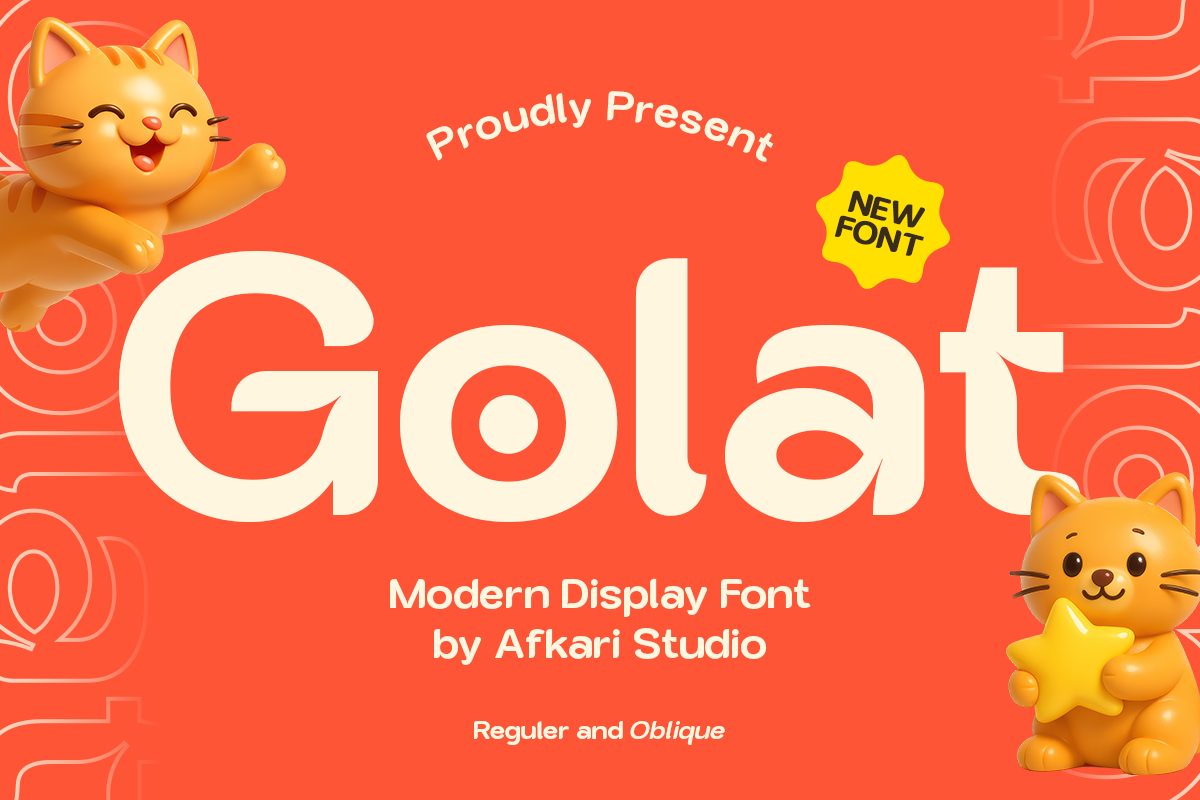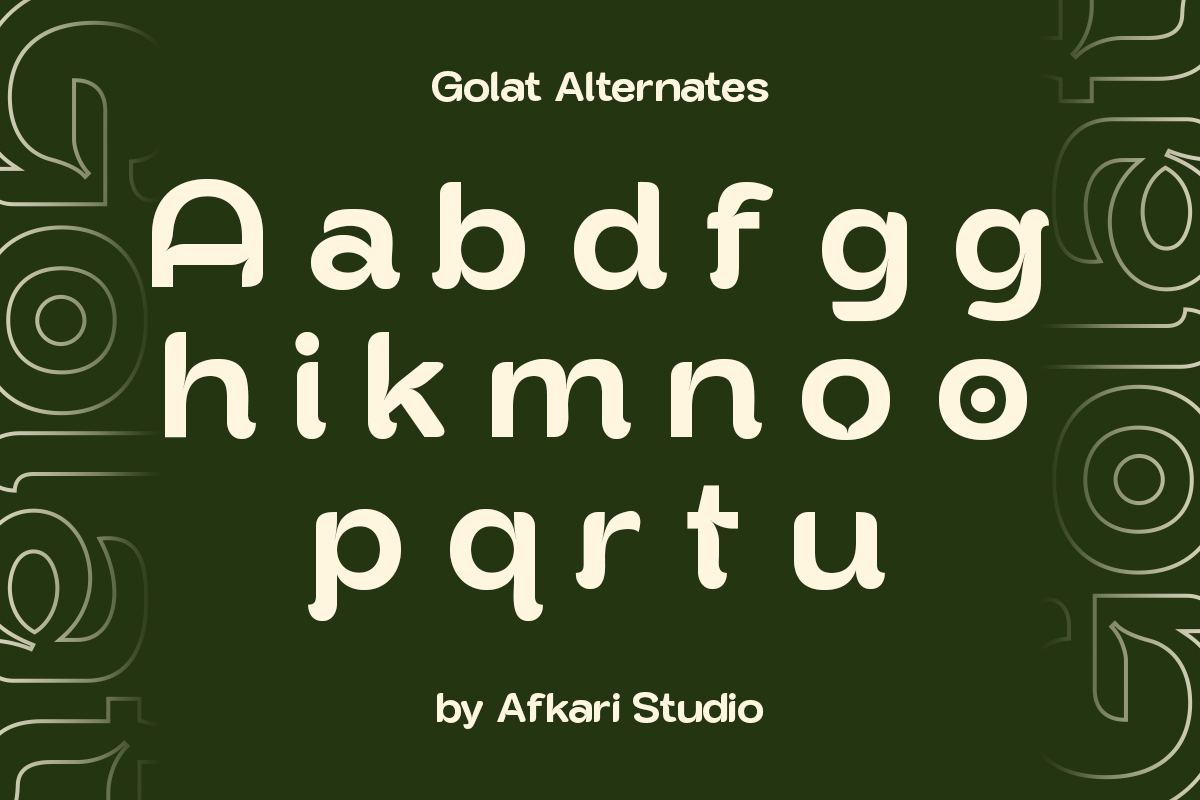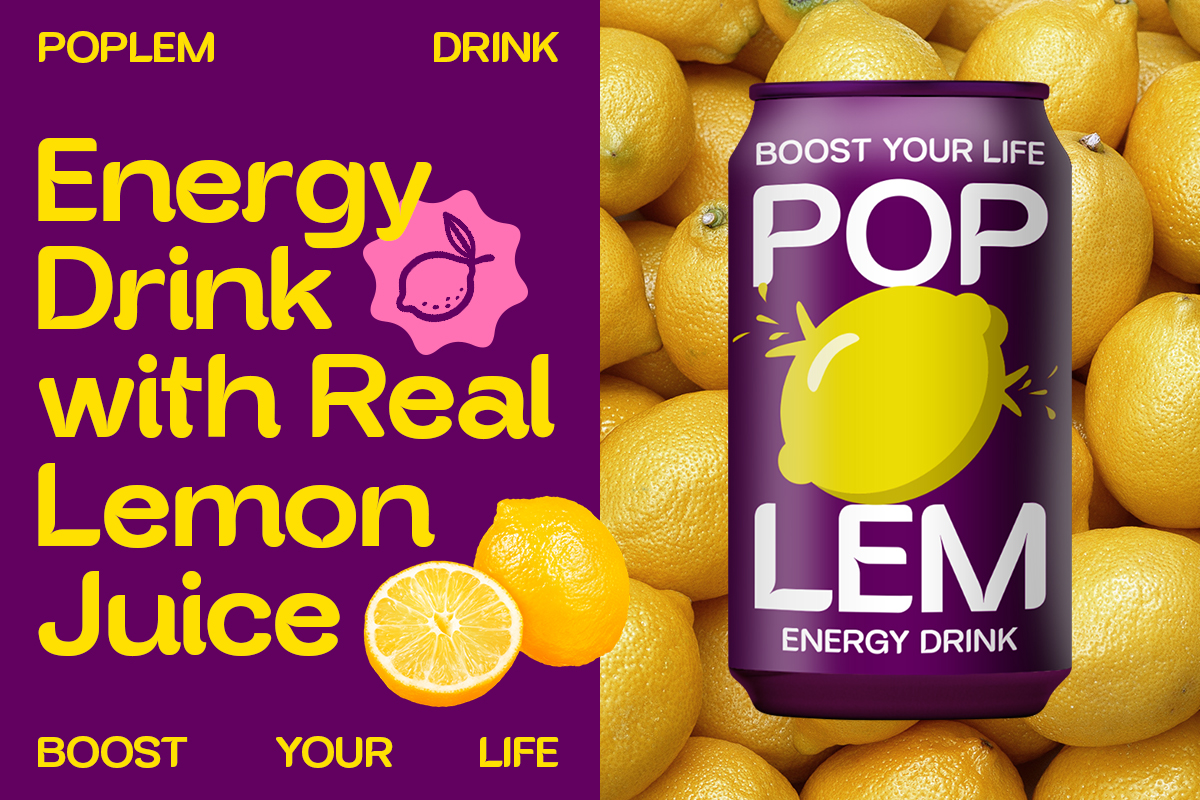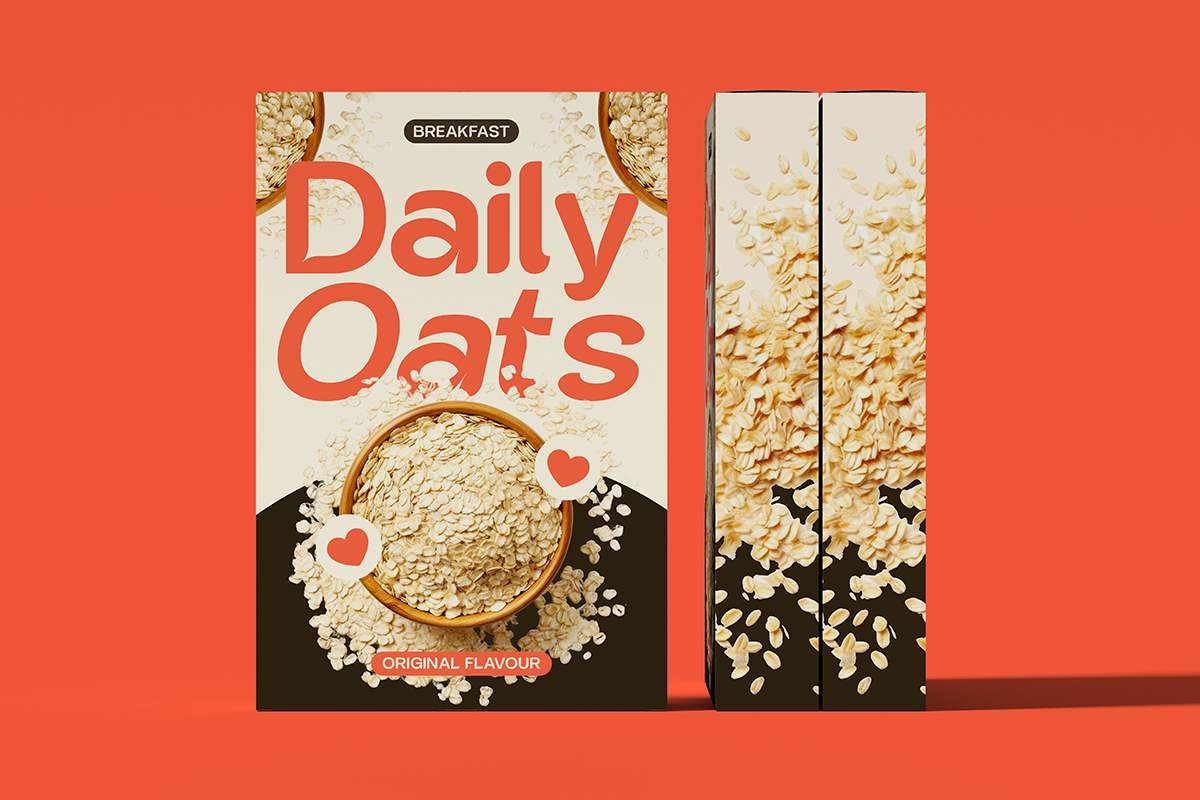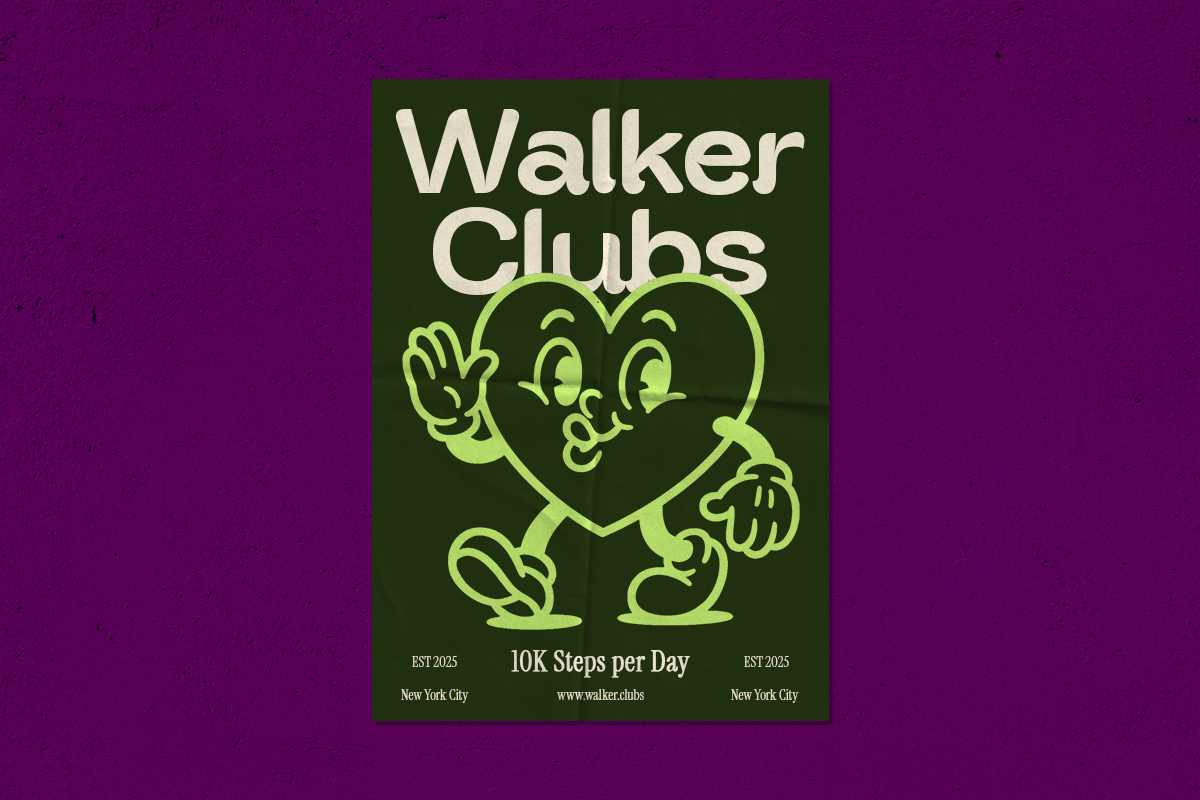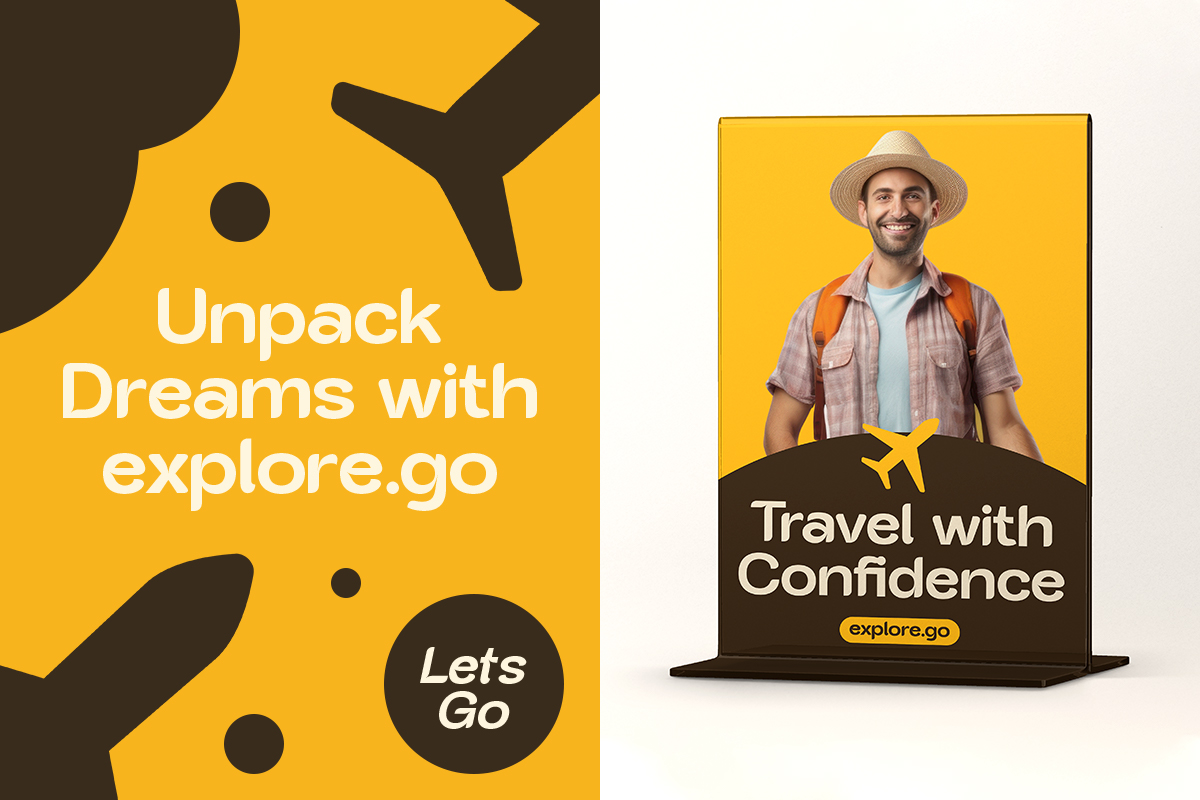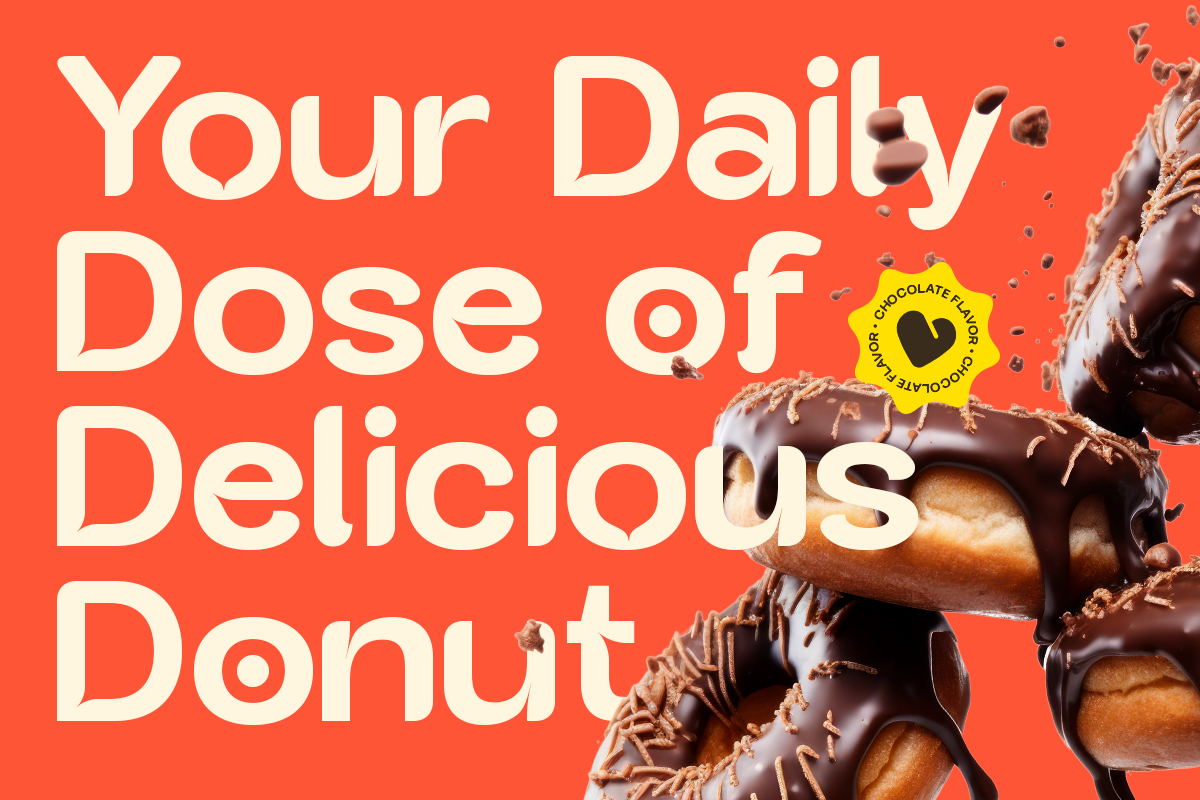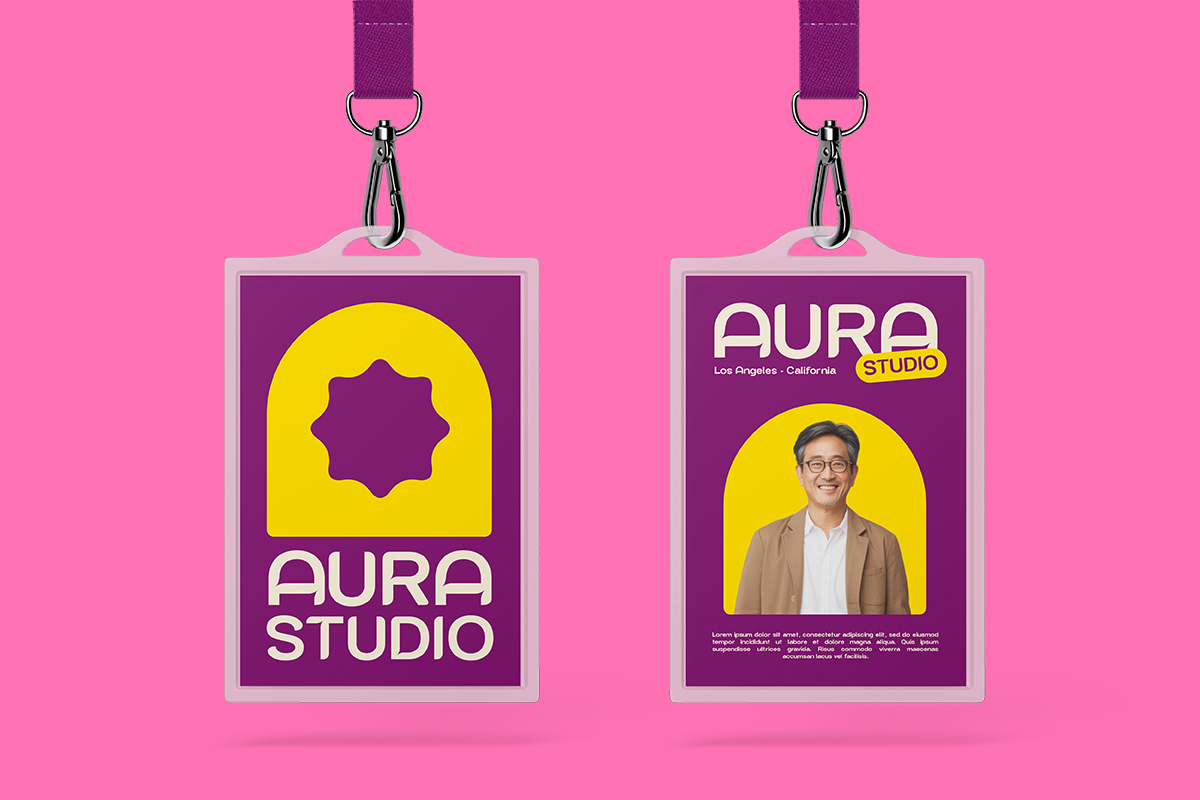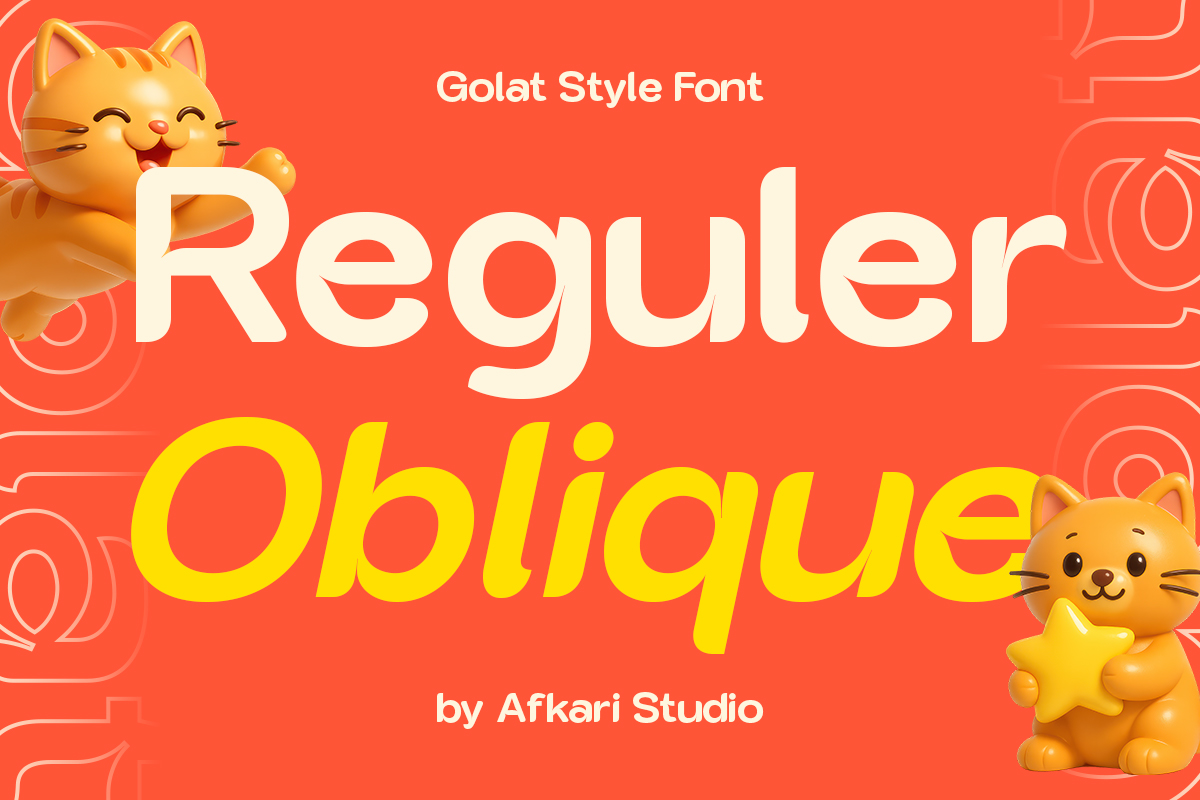
Golat - Modern Sans Serif Display Font
Golat – Modern Sans Serif Display Font is a bold and forward-thinking typeface designed for clean, contemporary impact. With sharp lines and a geometric foundation, Golat delivers clarity, strength, and a professional aesthetic—ideal for branding, display headlines, digital interfaces, and modern layouts.
This font includes two styles: Regular for a crisp and neutral appearance, and Oblique for a dynamic, italicized edge—giving designers the flexibility to mix tone and motion in one powerful family. Whether you’re creating sleek logos, futuristic packaging, or editorial titles, Golat makes a confident visual statement.
Golat is built for designers who want a modern, minimalist font that adapts seamlessly across web, print, and digital design.
Features;
– Uppercase, Lowercase, Number, and Punctuation
– Special Alternates and ligatures
– Mültîlíñgúãl Sùppört for; ä ö ü Ä Ö Ü ß ¿ ¡
Make your message loud and clear—with style—with Golat.